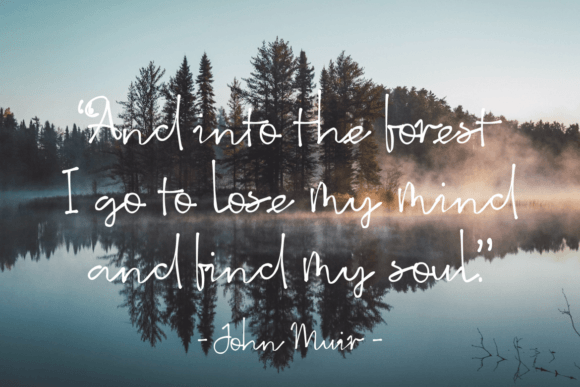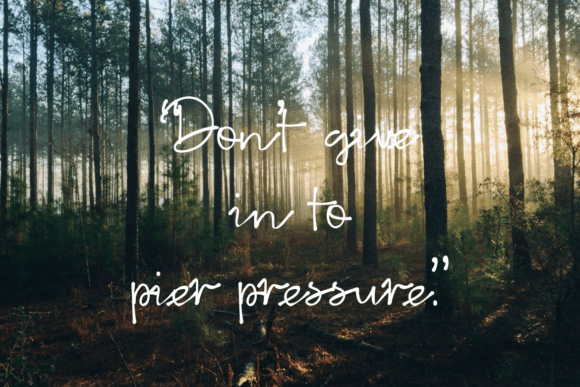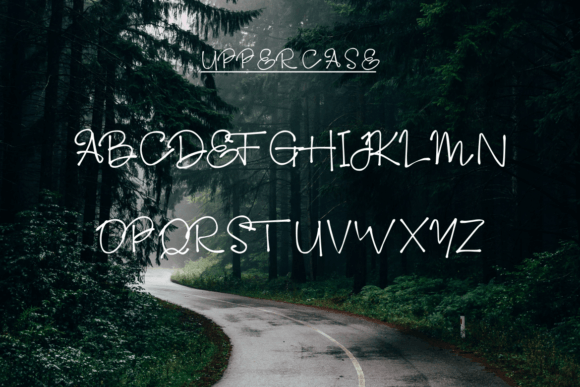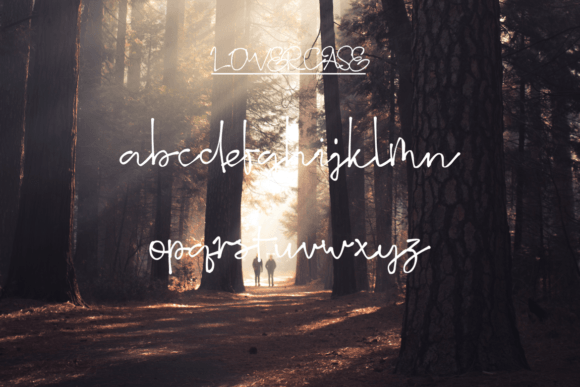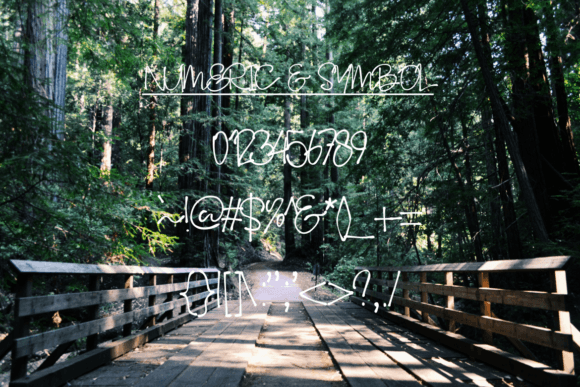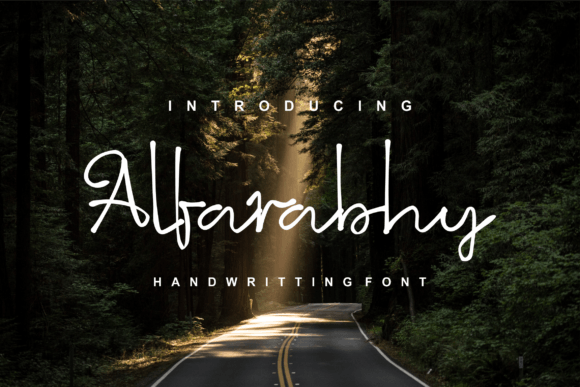
Introducing Alfarabhy Font: Elevate Your Designs with a Unique Handwriting Style
Are you tired of using the same old fonts in your designs? Do you want to add a personal touch to your typography and make your work stand out? Look no further than Alfarabhy Font, a handwriting font designed with an original touch to meet your creative needs. In this article, we’ll explore the features and benefits of Alfarabhy Font, and how it can elevate your designs to the next level.
What is Alfarabhy Font?
Alfarabhy Font is a carefully crafted handwriting font that boasts a unique and stylish aesthetic. Designed with a focus on originality, this font is perfect for designers and crafters looking to add a personal touch to their work. With a strong and sharp appearance, Alfarabhy Font is ideal for creating visually appealing designs that capture attention.
Key Features of Alfarabhy Font
So, what makes Alfarabhy Font so special? Here are some of its key features:
- Complete Character Set: Alfarabhy Font comes with a complete character set, including uppercase, lowercase, numeric, and symbols. This means you can use it for a wide range of design projects, from titles and typography to posters and packaging.
- Handwriting Style: With its handwriting style, Alfarabhy Font adds a personal touch to your designs. The font’s unique and original appearance makes it perfect for creating custom designs that stand out from the crowd.
- Strong and Sharp: Alfarabhy Font has a strong and sharp appearance, making it ideal for titles, posters, and other design projects where you want to make a bold statement.
- Versatile: Whether you’re designing for print or digital media, Alfarabhy Font is a versatile choice that can be used for a wide range of projects, including magazines, brochures, packaging, websites, and more.
How to Use Alfarabhy Font in Your Designs
Alfarabhy Font is easy to use and can be incorporated into your designs in a variety of ways. Here are some ideas to get you started:
- Typography: Use Alfarabhy Font to create custom typography that adds a personal touch to your designs.
- Posters and Flyers: Add a bold and eye-catching title to your posters and flyers with Alfarabhy Font.
- Magazines and Brochures: Use Alfarabhy Font to create engaging headlines and titles that draw readers in.
- Packaging: Add a unique and stylish touch to your packaging designs with Alfarabhy Font.
- Websites: Use Alfarabhy Font to create custom website headers, titles, and other typography that reflects your brand’s personality.
Benefits of Using Alfarabhy Font
So, why choose Alfarabhy Font for your designs? Here are some benefits of using this unique font:
- Unique Style: Alfarabhy Font offers a unique and original style that sets it apart from other fonts.
- Time-Saving: With Alfarabhy Font, you can create professional-looking designs in no time.
- Versatility: Alfarabhy Font can be used for a wide range of design projects, making it a versatile addition to your font library.
- High-Quality: Alfarabhy Font is a high-quality font that is designed to produce crisp and clear results.
In conclusion, Alfarabhy Font is a unique and stylish handwriting font that can elevate your designs to the next level. With its complete character set, strong and sharp appearance, and versatile nature, Alfarabhy Font is perfect for designers and crafters looking to add a personal touch to their work. Whether you’re designing for print or digital media, Alfarabhy Font is a great choice for creating visually appealing designs that capture attention.